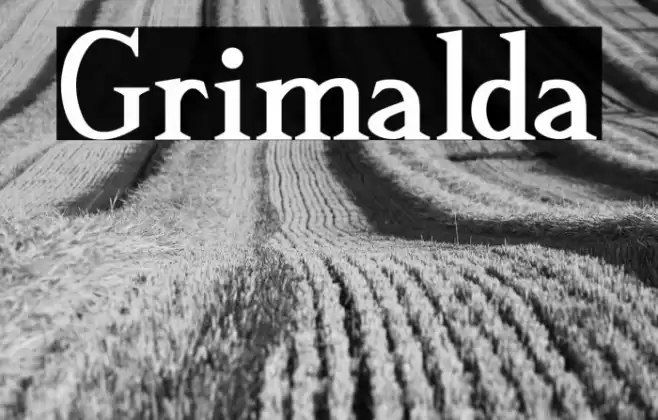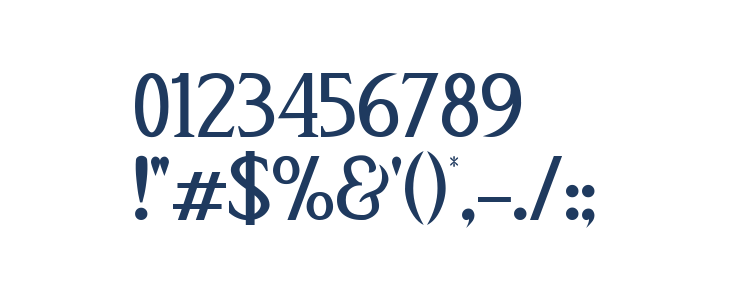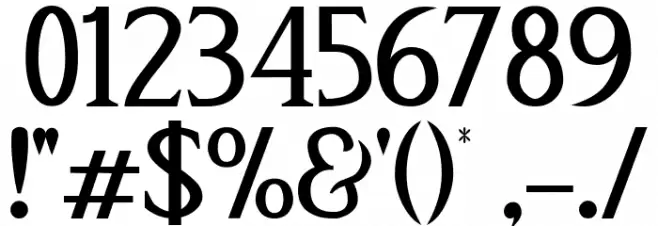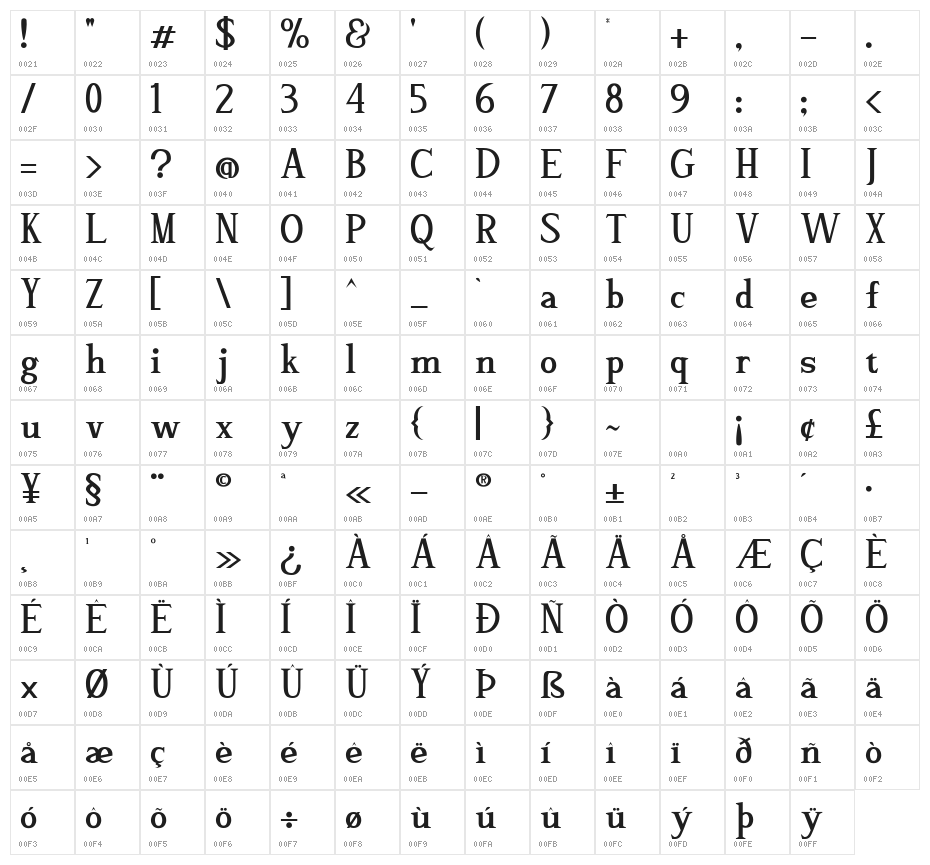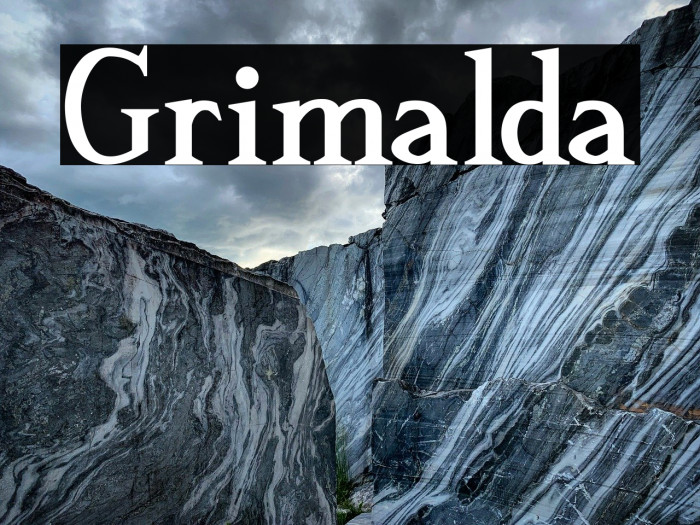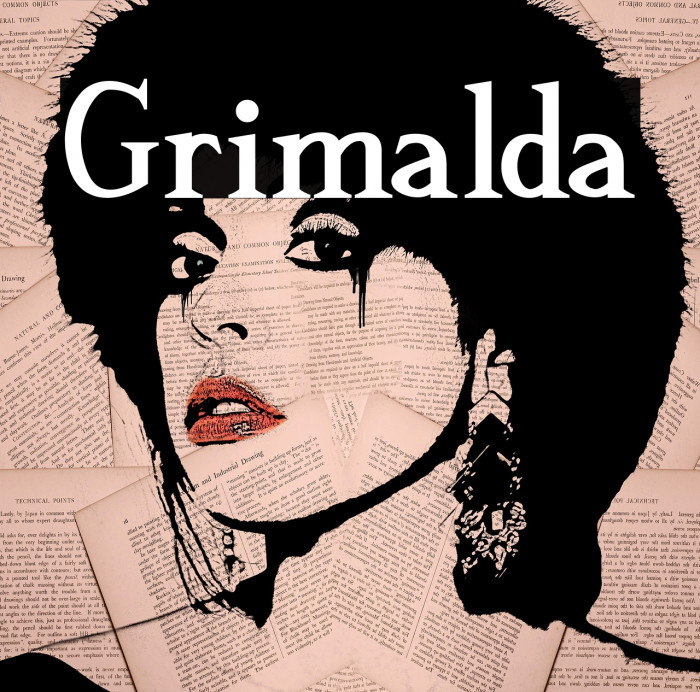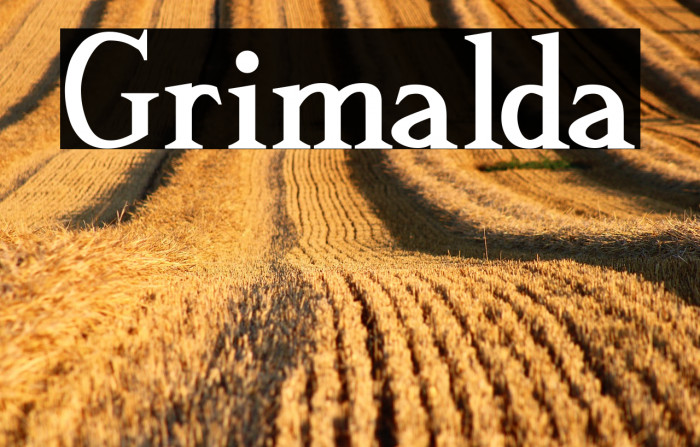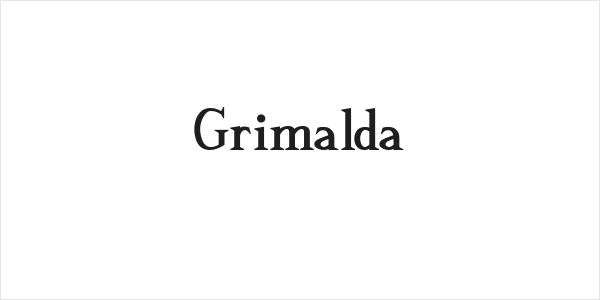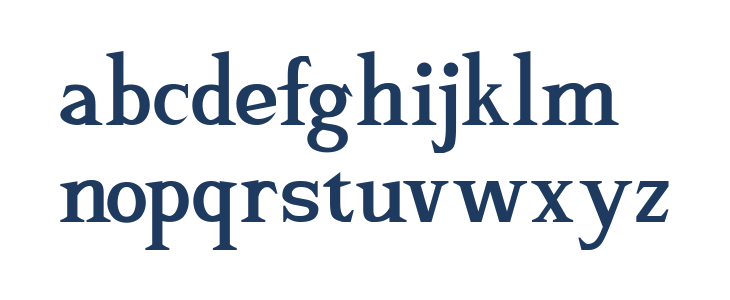
Grimalda Font
Grimalda Description
This font exhibits a classic serif style with a strong presence and elegant curves. The uppercase letters are bold and commanding, with distinct serifs that add a touch of sophistication. The lowercase letters maintain a consistent style, with smooth transitions and balanced proportions. Numbers are clear and legible, making them suitable for various applications. The special characters are well-integrated, maintaining the overall aesthetic of the font. This typeface is versatile, offering a timeless look that can be used in both modern and traditional contexts.
A classic serif font with elegant curves and strong presence from Uncategorized fonts.
- Proposed Projects: Ideal for book covers, editorial design, branding, and formal invitations.
- Overall Style: Classic